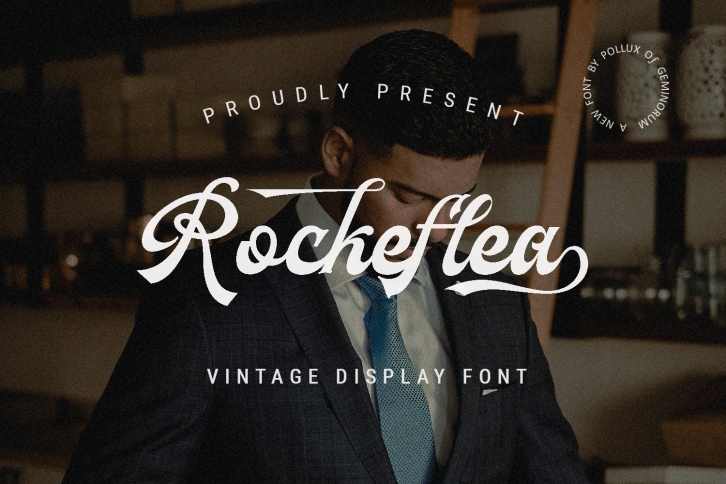
Rockeflea is a great font that was designed by Pollux of Geminorum. Imagine the amount of combinations you can create using this font! The archive is 10.3 MB and it was released on July 9, 2021. Rockeflea looks beautiful on wedding invitations, greeting cards, logos, posters, labels, t-shirt designs, logos, business cards and is perfect for use in ink or watercolor works, fashion, magazines, packaging and food menus, children's books and more!